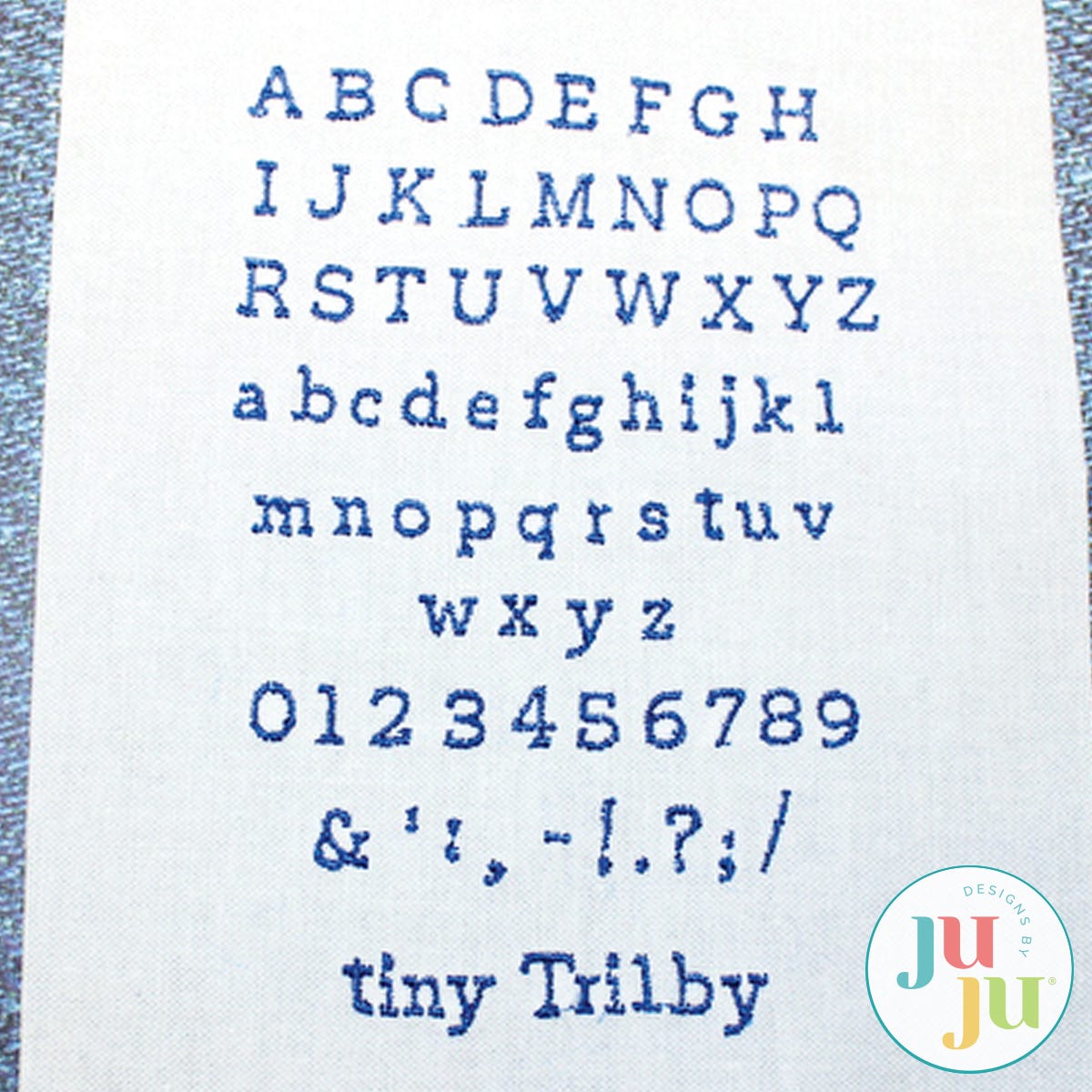
Trilby Satin Stitch Embroidery Font by Oma's Place
This very small block font was entirely digitized manually to ensure perfect start and ending of each letter. Each letter starts on the left and ends on the right, closest to the next letter. This font looks best when stitched with a 65/9 or 60/8 needle and with 60 wt thread. Despite its smallness, the font is very legible. Tips on how to stitch perfect small lettering are part of your download.
Capital letter A 0.23x0.21" (5.8x6.8 mm) 119 stitches
Lower case a 0.15x0.17" (3.7x4.4 mm) 103 stitches